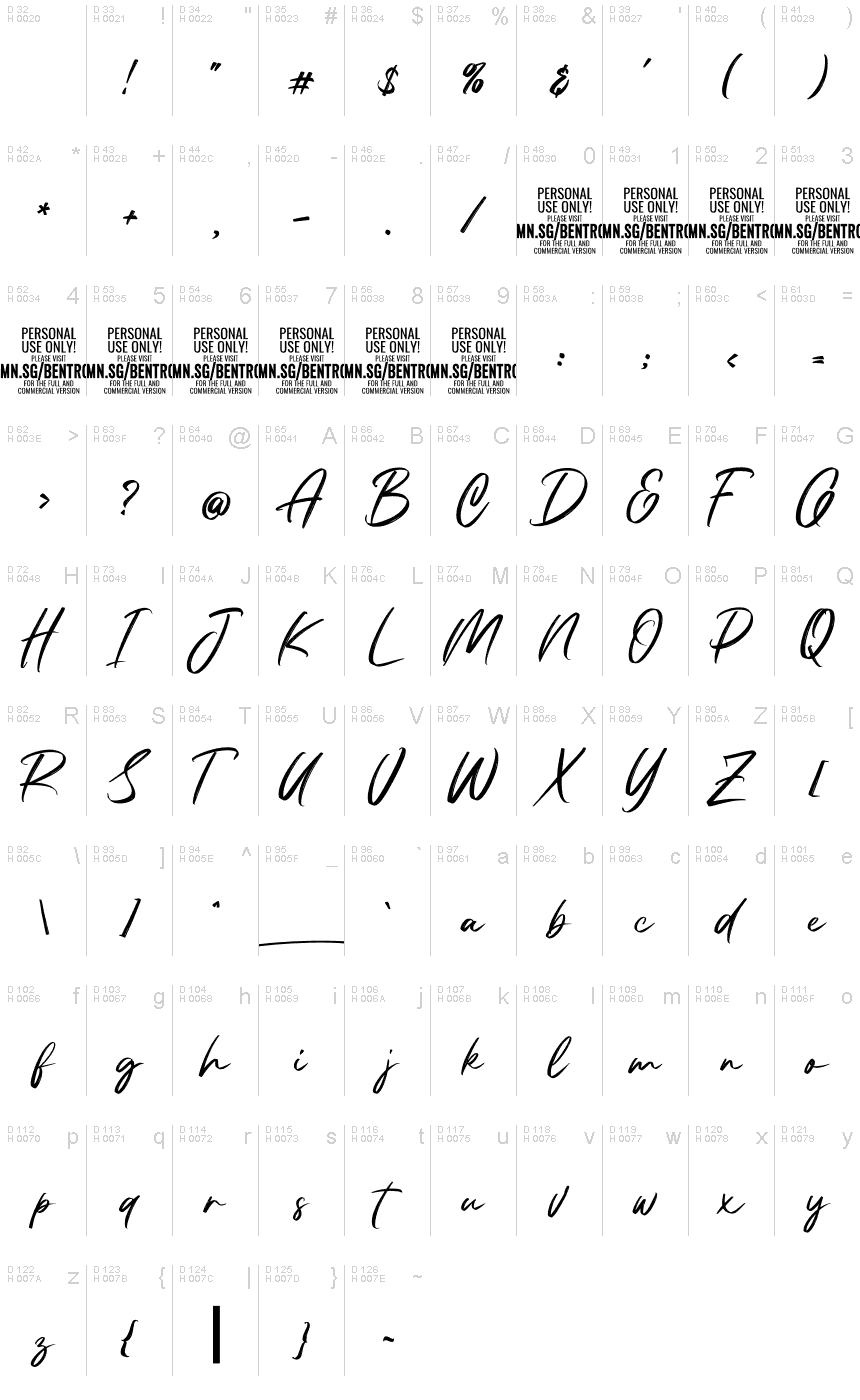
Bentron Calligraphic PERSONAL Regular
Bentron Calligraphic by Mans Greback is a stunning handwritten font, perfect for adding a touch of elegance to your designs. With its semi-light weight, it exudes a delicate and refined feel. This font is suitable for a variety of projects, from wedding invitations and cards to branding materials such as logos and packaging. Its flowing strokes and beautiful curves give it an authentic calligraphic look that will make any project stand out. Use Bentron Calligraphic to add a personal touch to your designs and elevate them to the next level.
Bentron Calligraphic is a bold and beautiful brush font with a touch of speed and sophistication.
Its rapid strokes and dynamic flow give it a signature-like quality that is perfect for adding a personal touch to your projects.
Designed by Mans Greback with a focus on the art of calligraphy, Bentron Calligraphic exudes elegance and grace with its smooth curves and flowing lines.
Use underscore _ to create a swash anywhere in a word.
Example: Space_jams
Use multiple underscores to create different swashes.
Example: Signa____tures